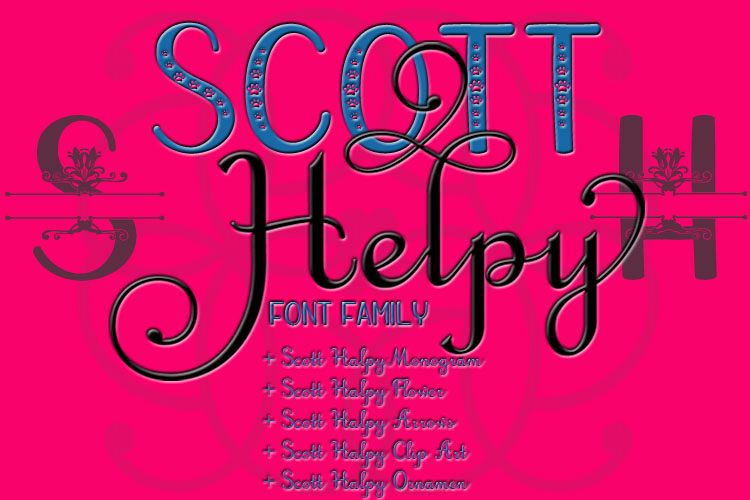
Scott Helpy Big Family
Scott Helpy font is a Large Family Font with a fresh new hand design. Perfect for greeting cards, branding materials, business cards, quotes, posters, and more!
-FEATURES-
- Scott Helpy (+520 Gliphs, +237 Alternate, Simbol, Number and Supports Alternate Eraopa Languages)
- Scott Helpy Mistic
- Scott Helpy Monogran
- Scott Helpy Ornamen
- Scott Helpy Flower
- Scott Helpy Arrow
- Scott Helpy Clip Art